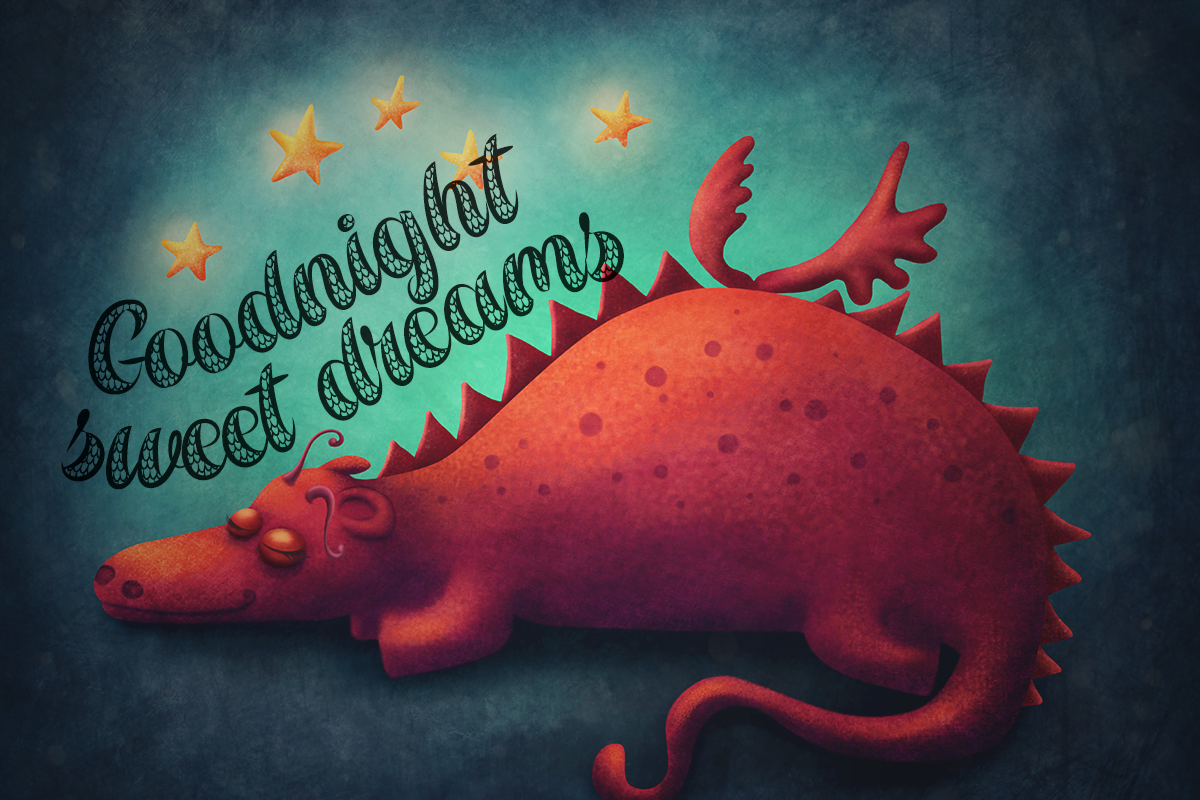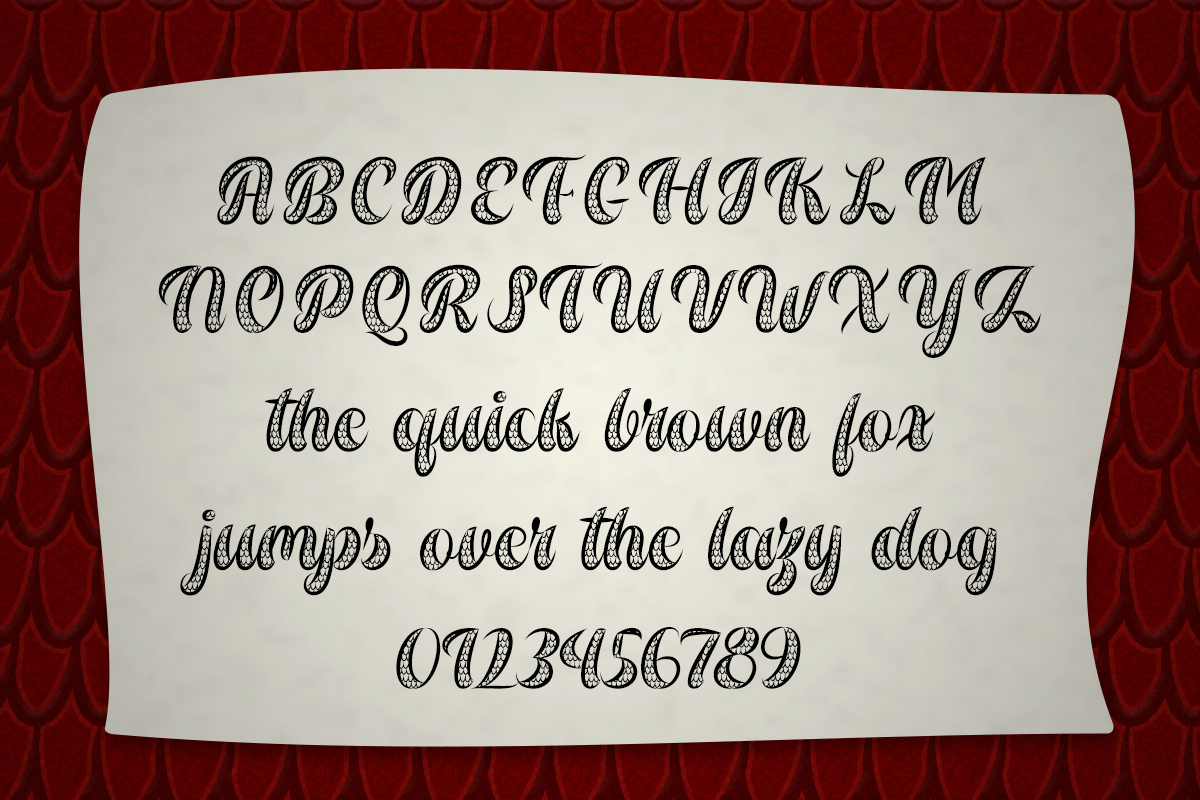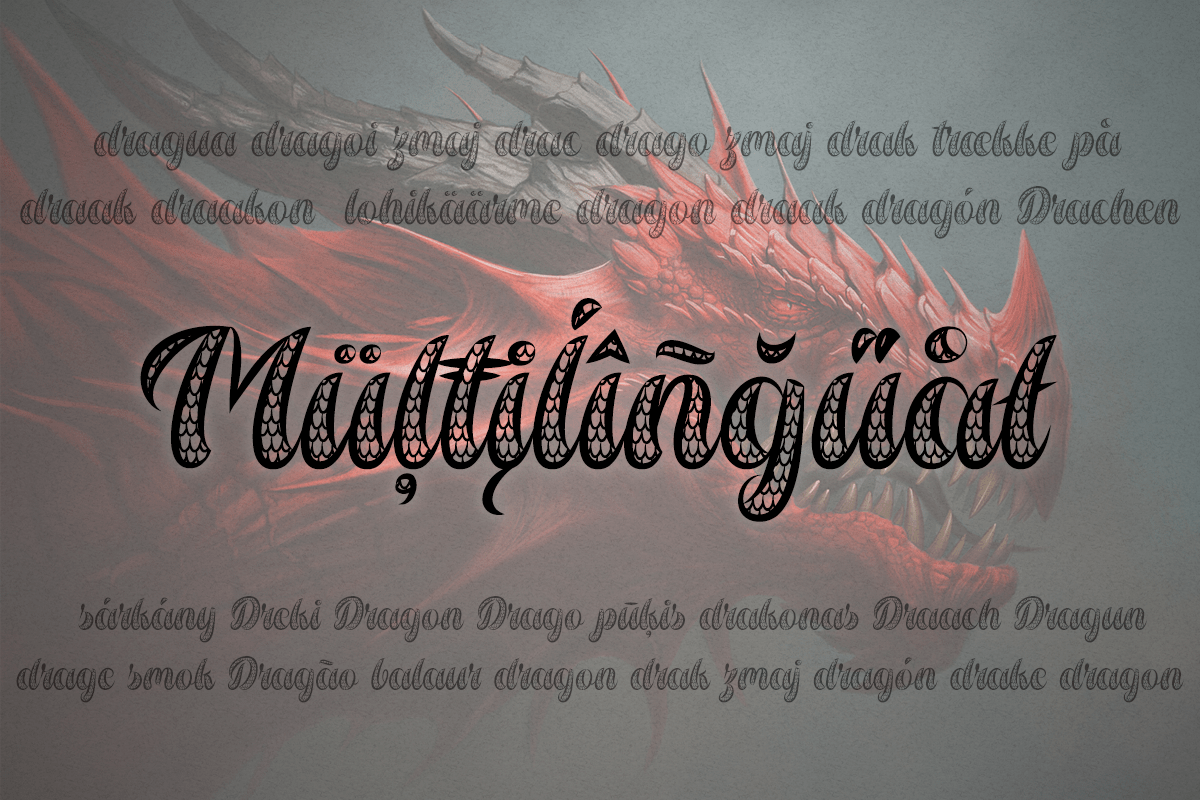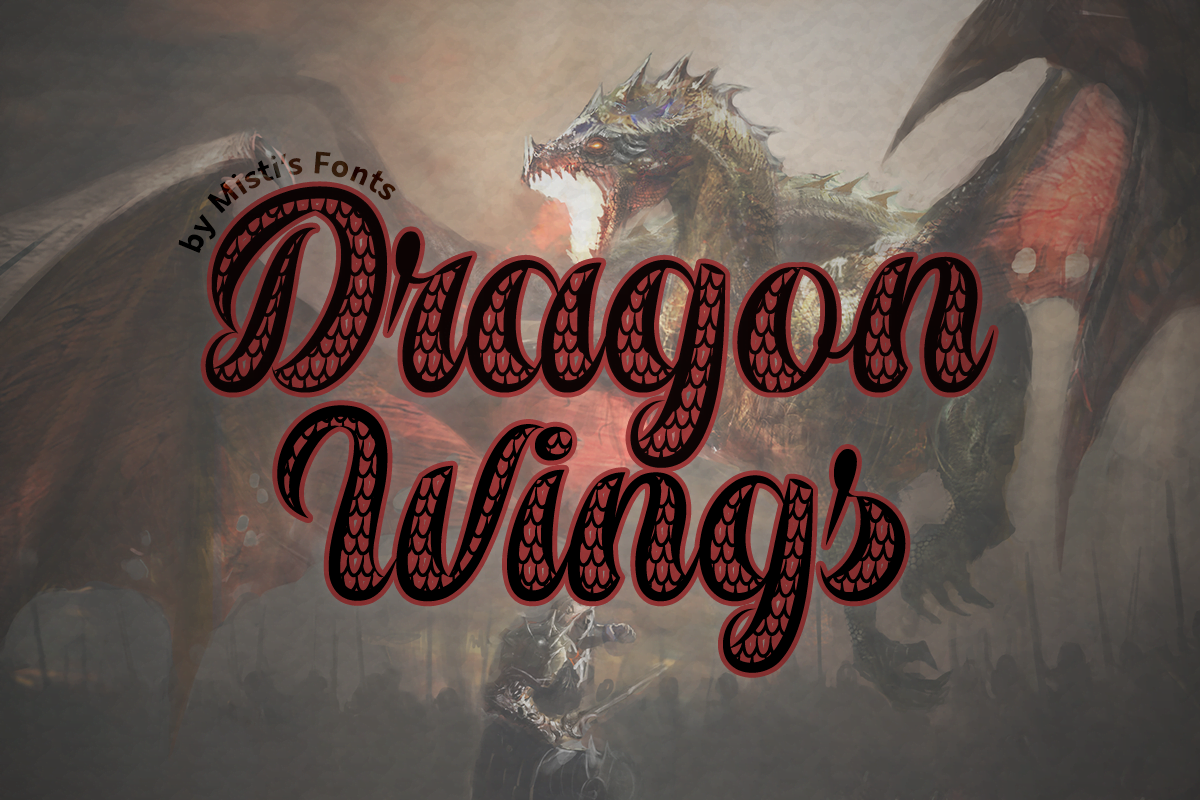
Dragon Wings
Dragon Wings is a fantastic cursive typeface. Its unique scale texture evokes a feeling of fantasy that will make your designs stand out from the crowd. It is perfect for any project related to dragons, reptiles, mermaids, medieval times, and fairytale themes.